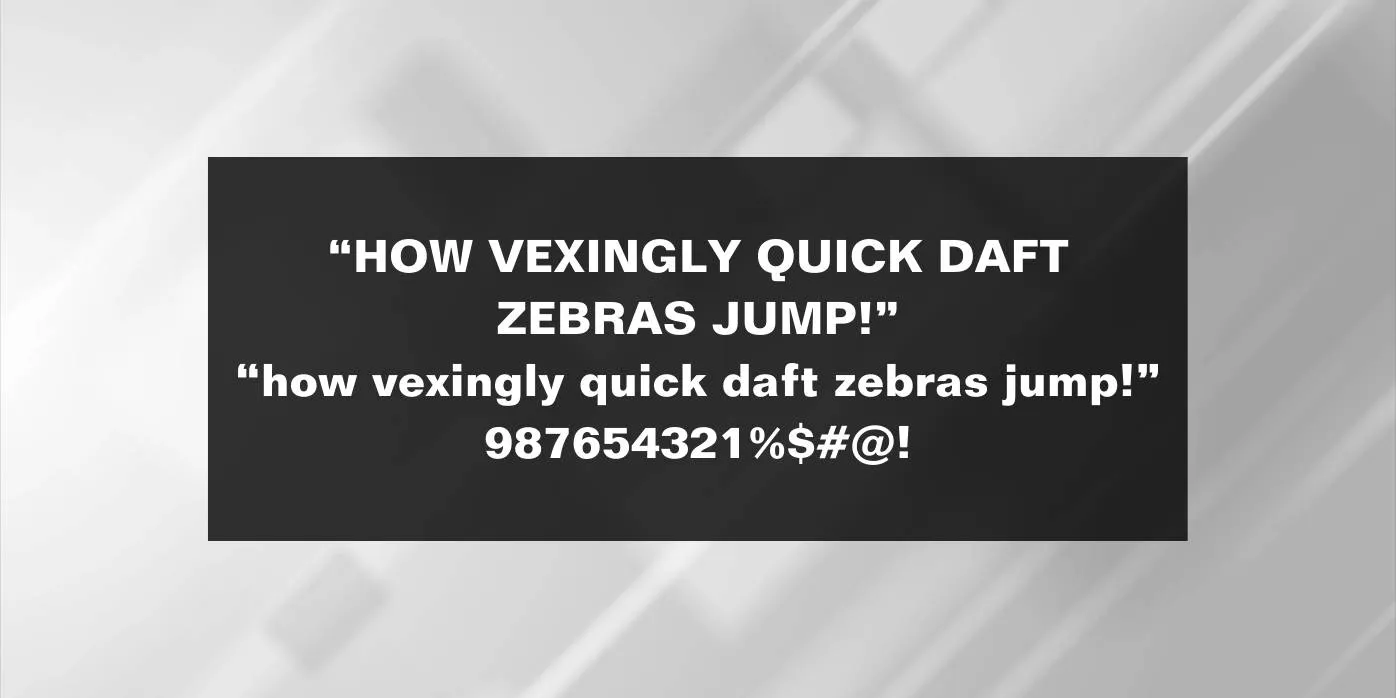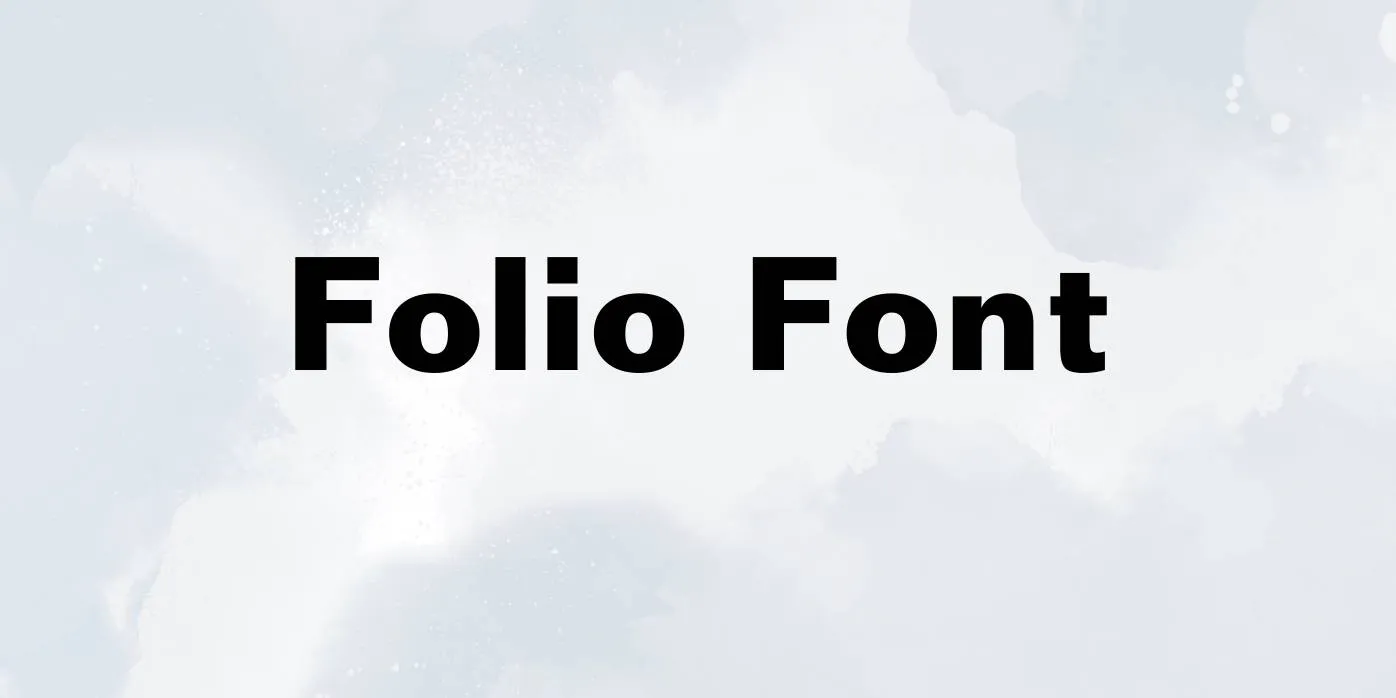
Folio Font
Today, we are consulting on a famous typeface known as Folio Font. This stylish typeface belongs to the fancy font family. This typeface was designed by Bitstream foundry. This typeface was created on 7th May 1992.
Folio Font is a fancy typeface with elegant shapes. The curves of this family are very well balanced and give it a timeless quality. This typeface works well for both body text and headlines. Folio has 6 different weights, from light to black, each with matching italics.